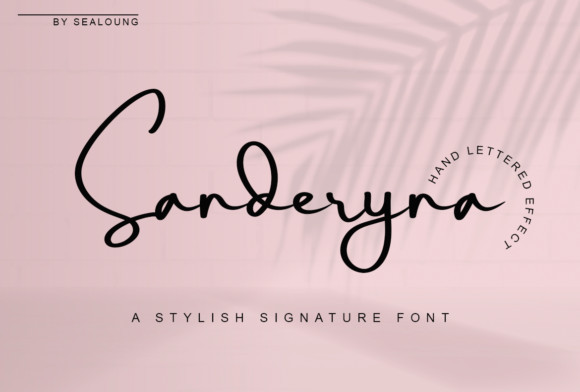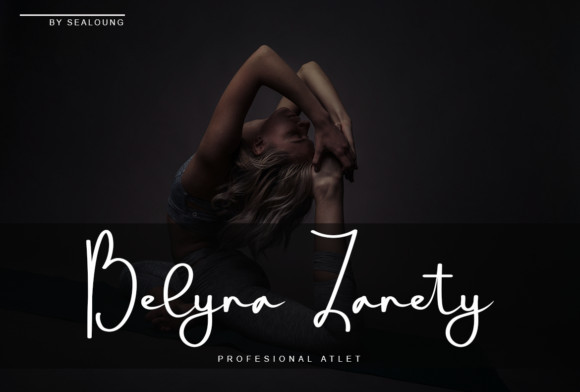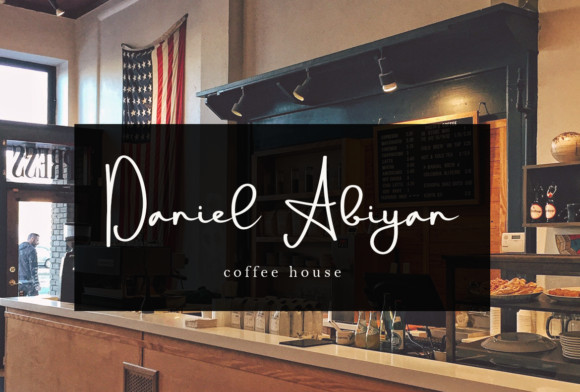
Sanderyna Font
Sanderyna is a simple and dainty handwritten font. It looks beautiful on a variety of designs requiring a personalized style, such as wedding invitations, thank you cards, weddings, greeting cards, logos and so on.